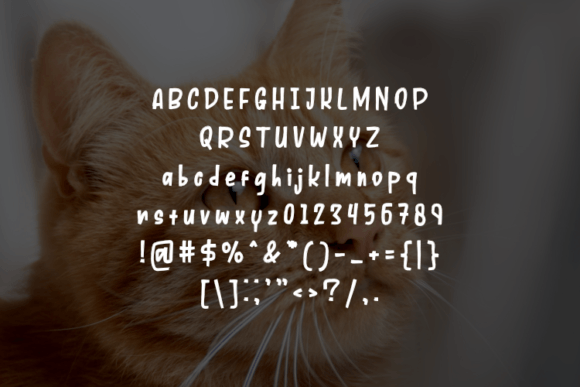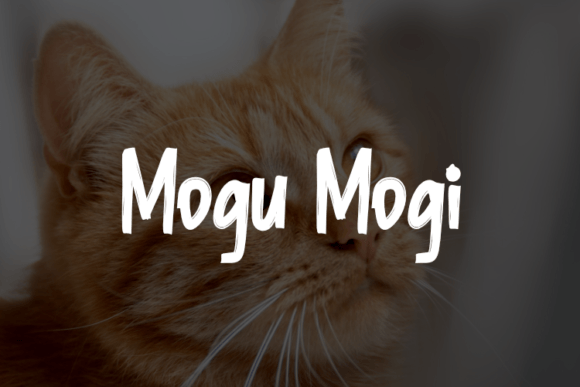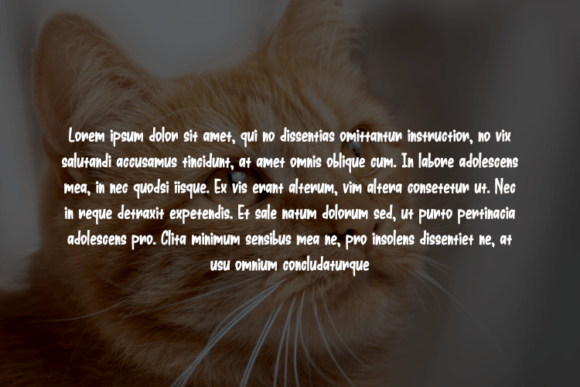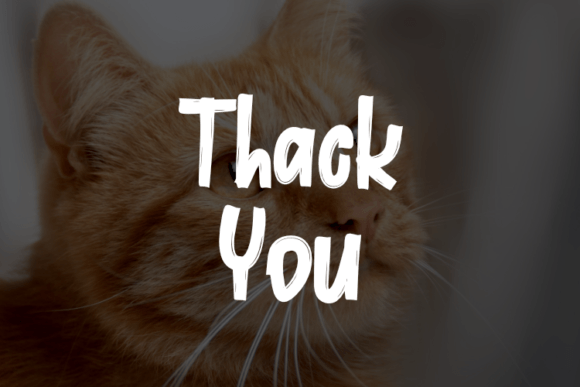
Introduction to Mogu Dama Font
Immerse yourself in the creative world of Mogu Dama, a unique font that proffers an added flair to the realm of fashion design.
From chic clothing to trendy t-shirts, this versatile font breathes life into your products, transcending the confines of style and design Outfitted to fit in effortlessly with all kinds of designs and fully compatible with any software, Mogu Dama provides the quintessential typography solution for fashion-forward designers.
Key Features of Mogu Dama Font
Why Choose Mogu Dama Font?
Mogu Dama Font offers exceptional quality and versatility, making it a valuable addition to your design toolkit. Whether you’re creating for personal projects or commercial use, Mogu Dama Font delivers professional results.